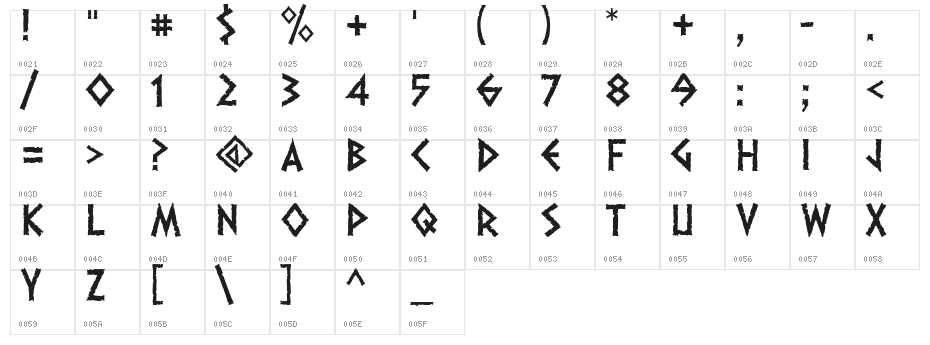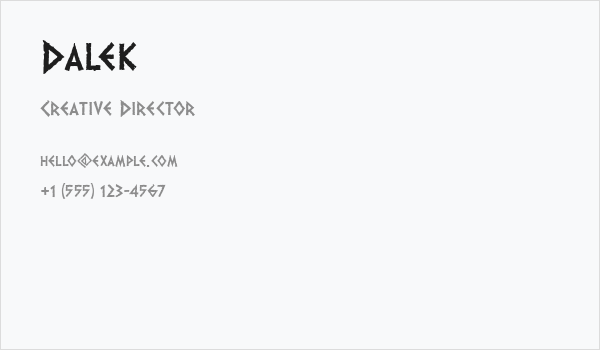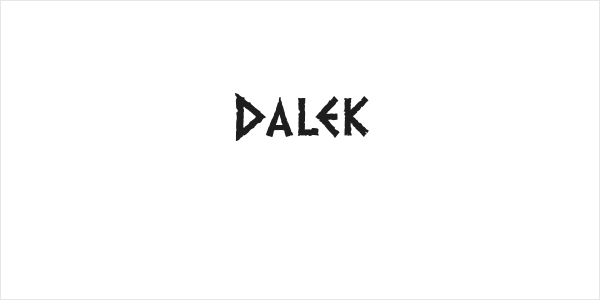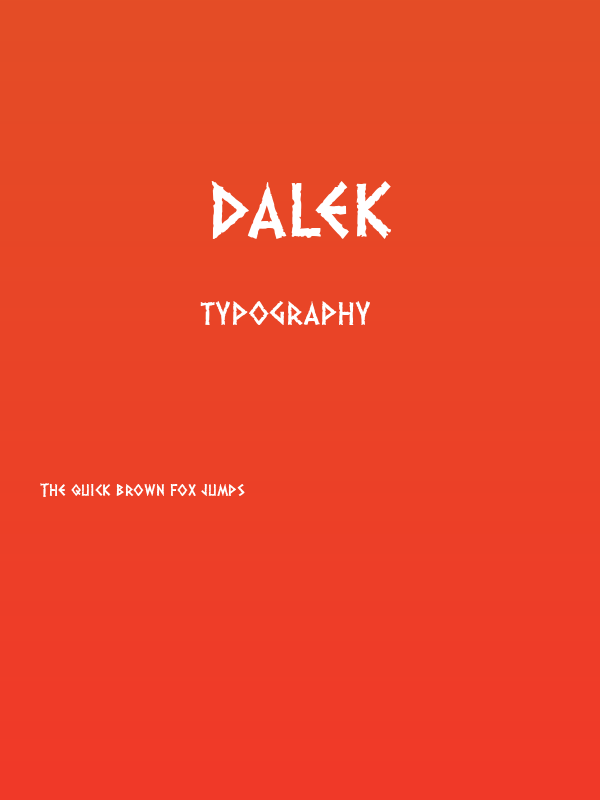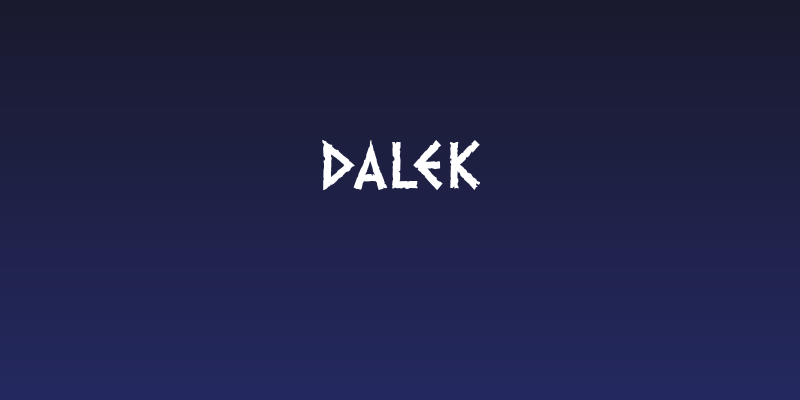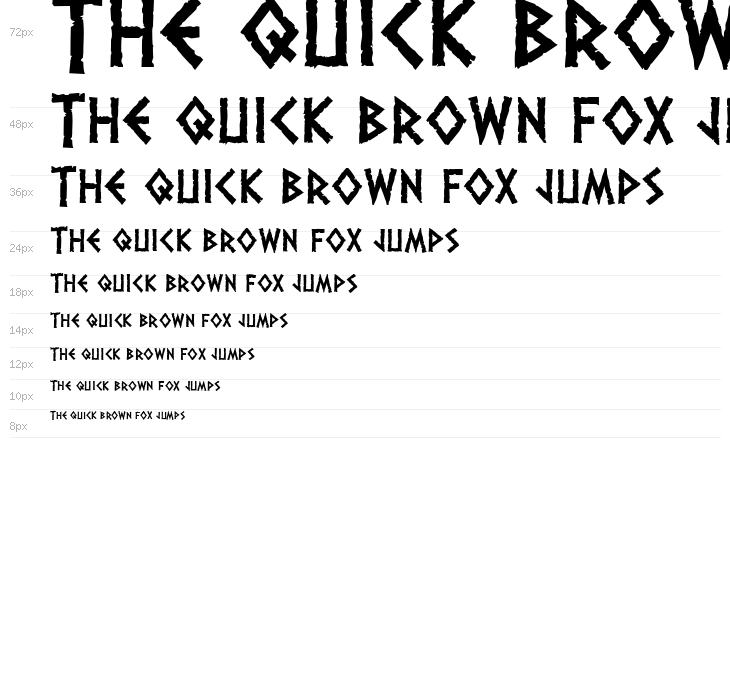
Dalek Font
Dalek Description
This font features a bold, jagged style reminiscent of a futuristic or sci-fi theme. The characters are sharply angular with irregular edges, giving them a rugged, distressed appearance. The uppercase and lowercase letters maintain a consistent height, while the numbers and special characters follow the same edgy design. The font's unique aesthetic makes it stand out, with each character appearing as if it has been carved or etched, adding to its dramatic and eye-catching appeal.
| Overall Style | Futuristic, Distressed |
| Proposed Projects | Ideal for sci-fi themed posters, video game graphics, or any project requiring a bold, edgy look. |